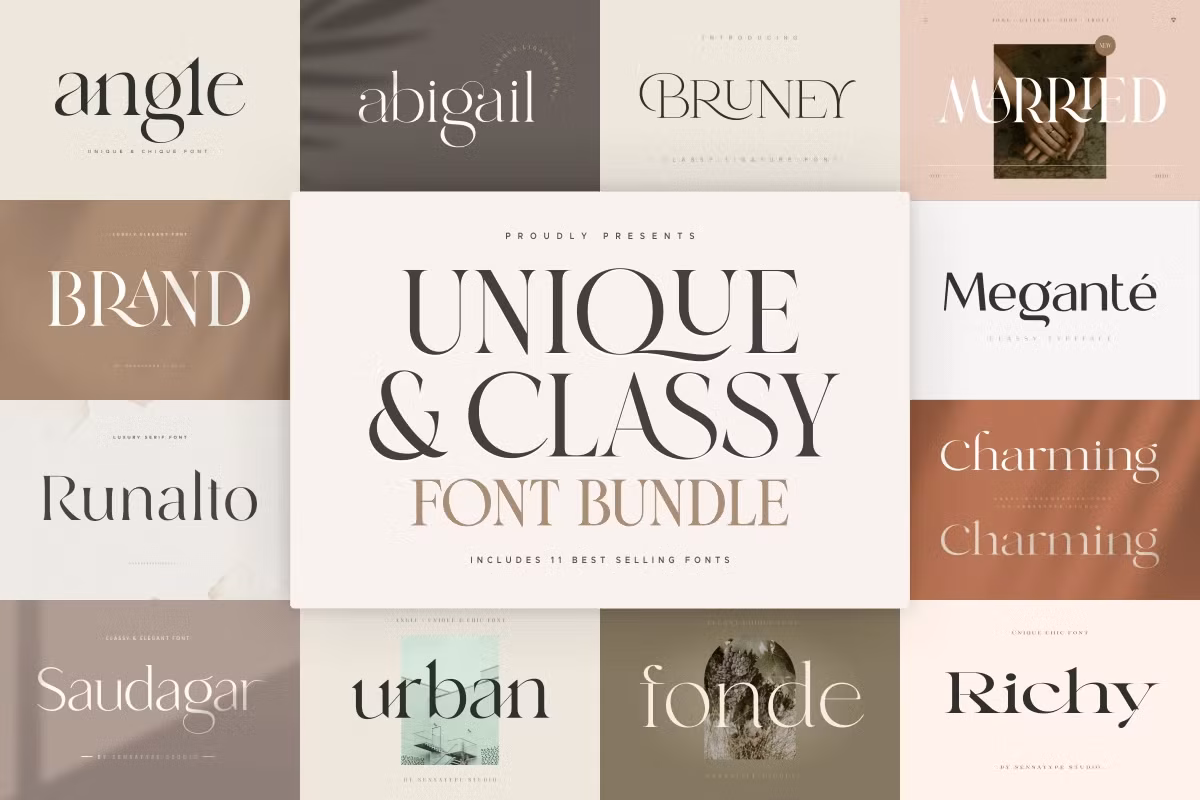
Unique & Classy Modern Font Bundle Free Download
Unique & Classy Modern Font Bundle Free Download is a premium collection of stylish and contemporary typefaces designed to bring elegance and versatility to your creative toolkit. Perfect for branding, logos, fashion magazines, wedding designs, and social media content, this bundle offers a mix of sleek serifs, modern scripts, and refined display fonts.
Unique & Classy Modern Font Bundle Free Download gives designers access to a variety of high-quality fonts that work beautifully together or on their own. Whether you’re crafting a minimalist brand identity or designing editorial layouts with flair, this bundle has the perfect font to match your vision. Download it now and elevate your design game with this curated collection of modern elegance.